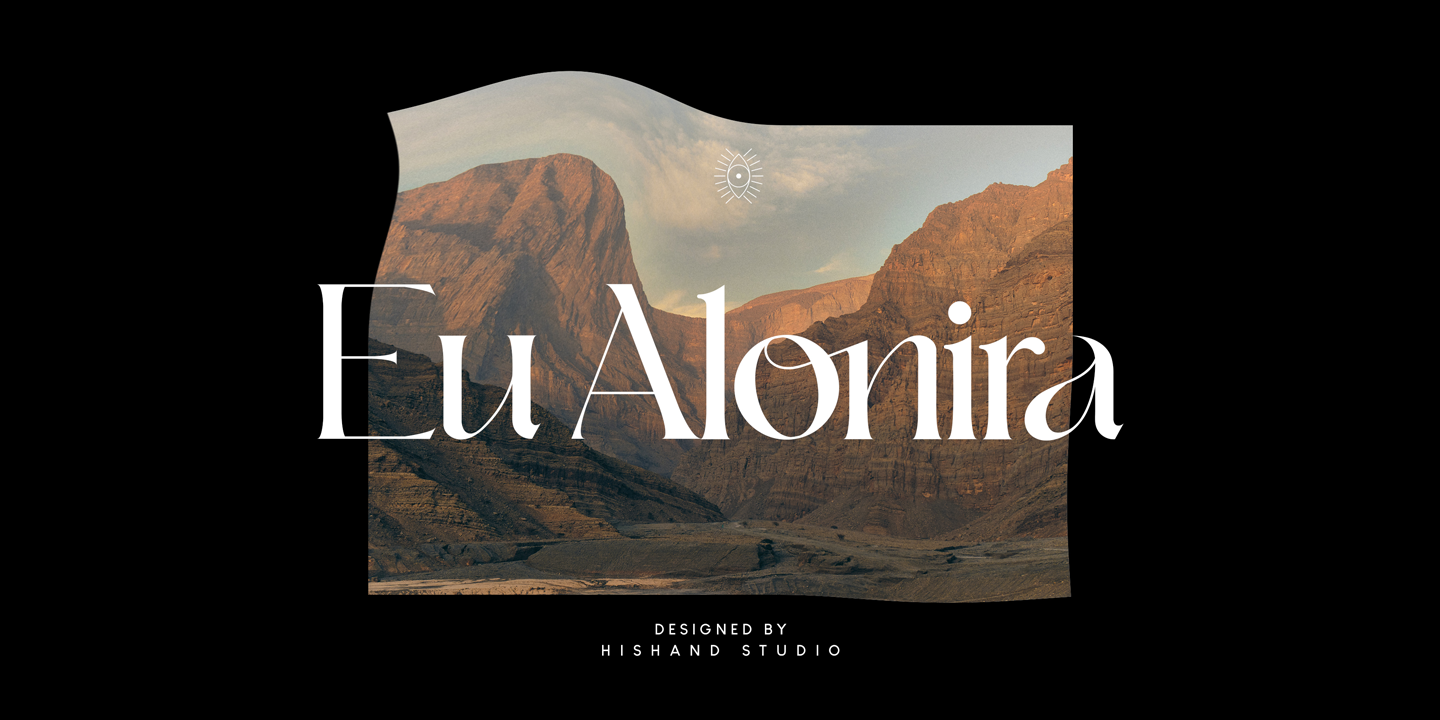
Eu Alonira Font is perfect for Portuguese cultural center branding, European heritage museum communications, romantic Portuguese restaurant signage, Mediterranean travel blog materials, cultural exchange program promotions, Latin language institute marketing, traditional wine estate branding, and authentic European lifestyle campaigns. This distinctive typeface excels in applications where European elegance, Romance language sophistication, and cultural authenticity are essential for connecting with audiences who appreciate the rich linguistic heritage and refined cultural traditions of Portuguese and European civilizations.
What makes Eu Alonira Font so exciting is its elegant embodiment of Romance language sophistication and European cultural refinement that perfectly captures the essence of Portuguese linguistic beauty and the graceful traditions of Mediterranean European culture. The font features flowing, romantic letterforms with cultural characteristics that evoke handwritten Portuguese poetry and European manuscript traditions. Its sophisticated character conveys cultural depth, linguistic elegance, and European heritage - essential qualities for brands serving culturally conscious audiences, language enthusiasts, and travelers who appreciate Portuguese culture, European traditions, and the melodic beauty of Romance languages and Mediterranean lifestyle elegance.
The Eu Alonira Font family includes multiple elegant weights and culturally-inspired variations that enhance its European appeal. Some versions feature subtle classical elements that reflect traditional European typography and Portuguese calligraphy, while others provide contemporary variants that maintain the font's cultural character with enhanced readability for modern heritage applications and commercial European cultural communications.
Whether you're creating branding for cultural organizations, designing materials for European heritage services, or developing marketing campaigns for Portuguese experiences, Eu Alonira Font Free Download provides the authentic cultural sophistication your project requires. The font's European character makes it particularly effective for brands targeting culturally aware audiences who appreciate Portuguese heritage, Romance language beauty, and the refined elegance of European cultural traditions.
Embrace European elegance with Eu Alonira Font and honor cultural heritage with typography that celebrates the sophisticated beauty of Portuguese language and European cultural refinement.